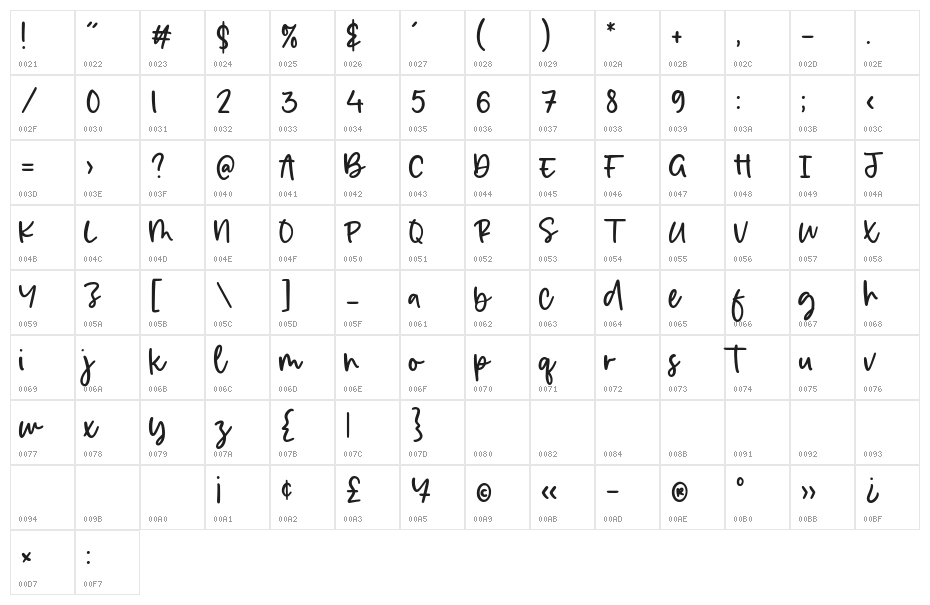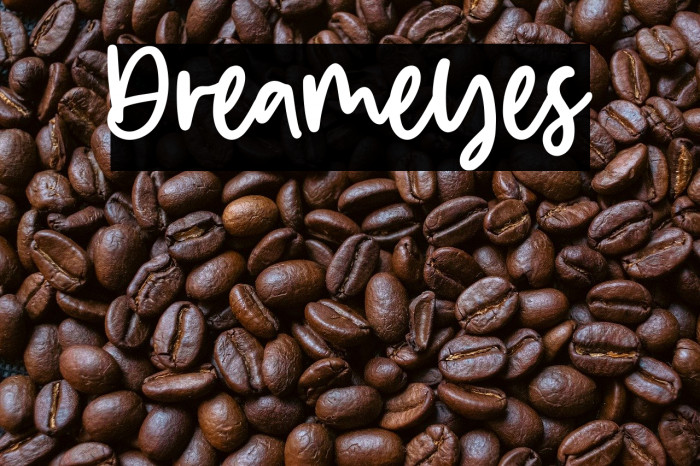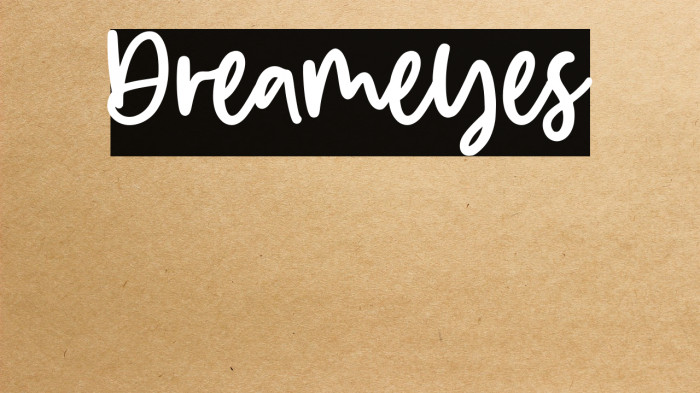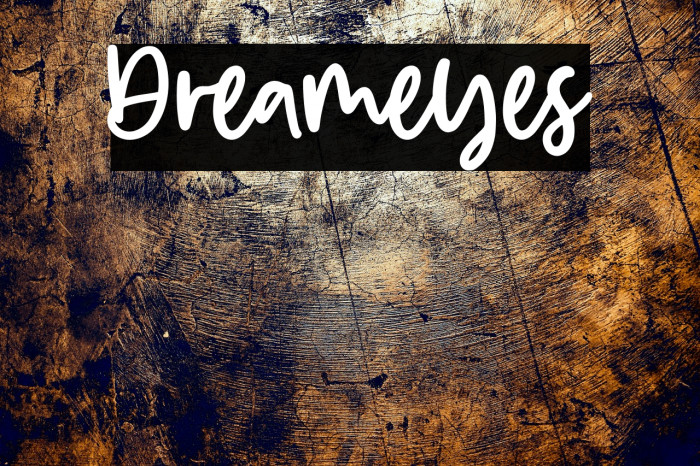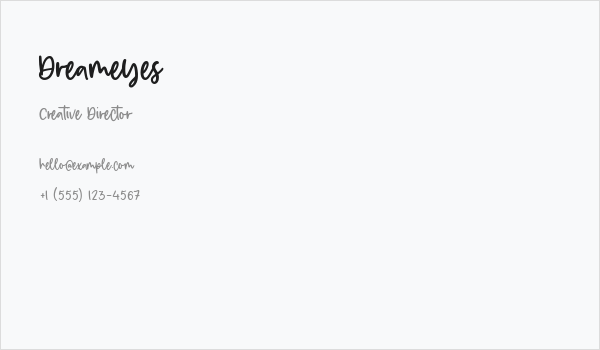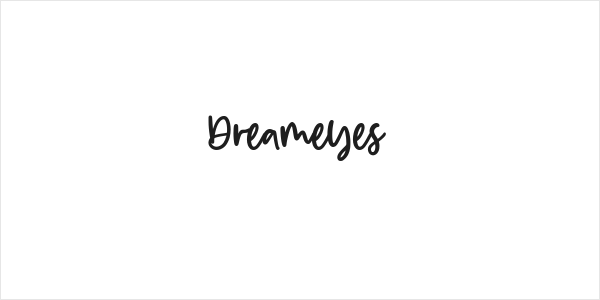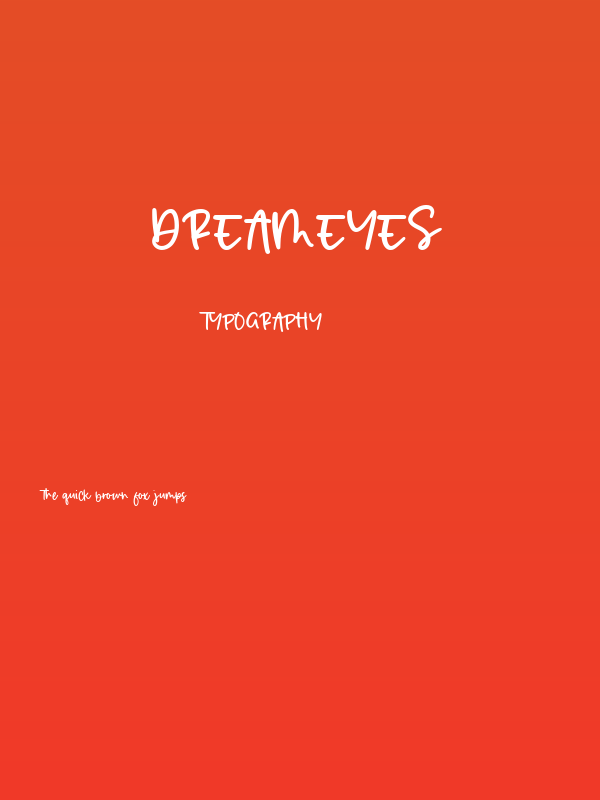
Dreameyes Font
Dreameyes Description
This font features a playful and casual handwritten style, characterized by its smooth, flowing lines and slightly irregular letterforms. The uppercase and lowercase letters maintain a consistent rhythm, giving it a cohesive look. The strokes are moderately thick, providing good readability while retaining a personal touch. The numerals and special characters are crafted with the same informal flair, making the font versatile for various creative applications. Its overall appearance is friendly and approachable, ideal for projects that require a personal or informal tone.
| Use Case | Headlines, Logos, Social media |
| Proposed Projects | Ideal for greeting cards, invitations, personal branding, and social media graphics. |